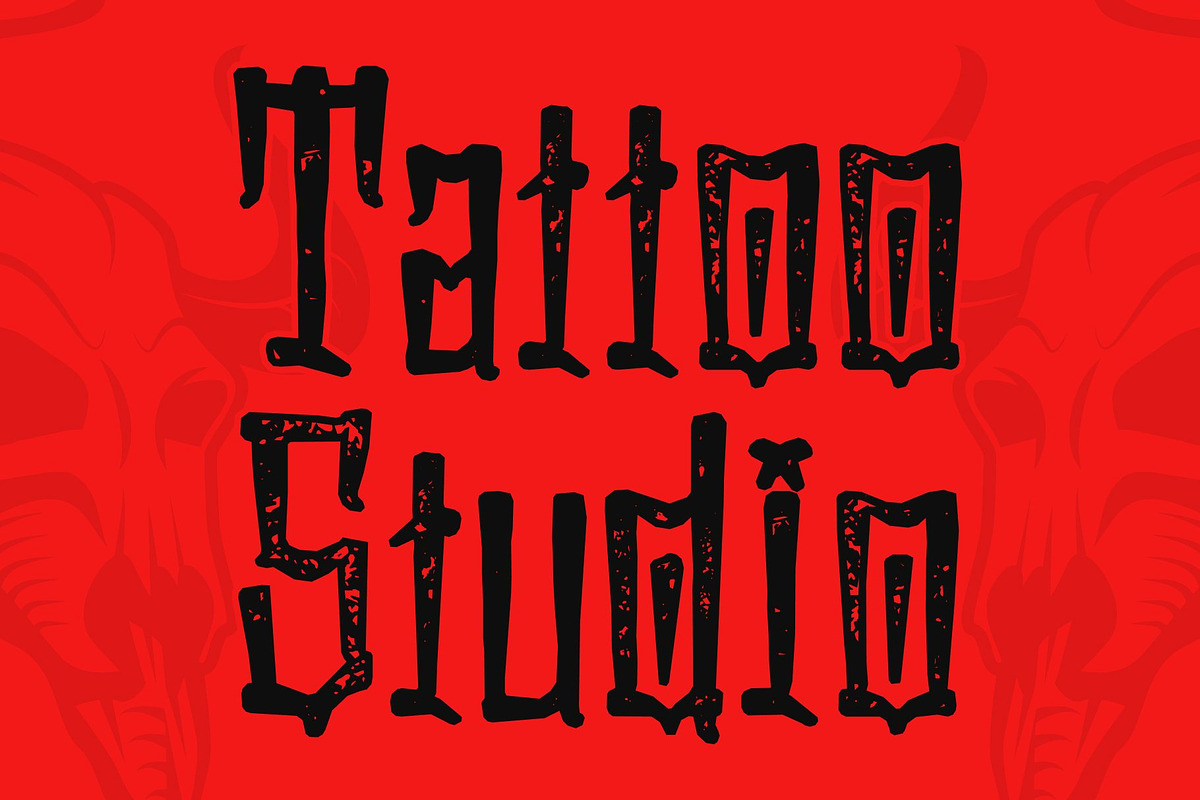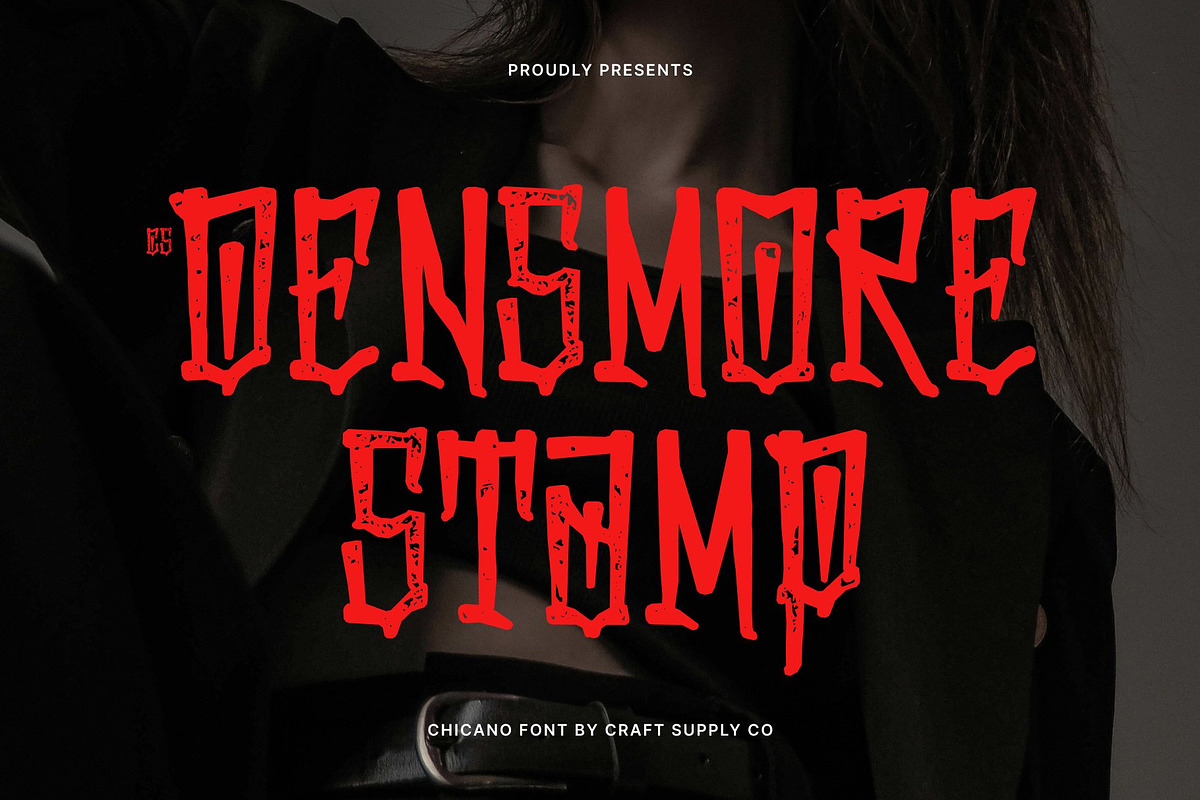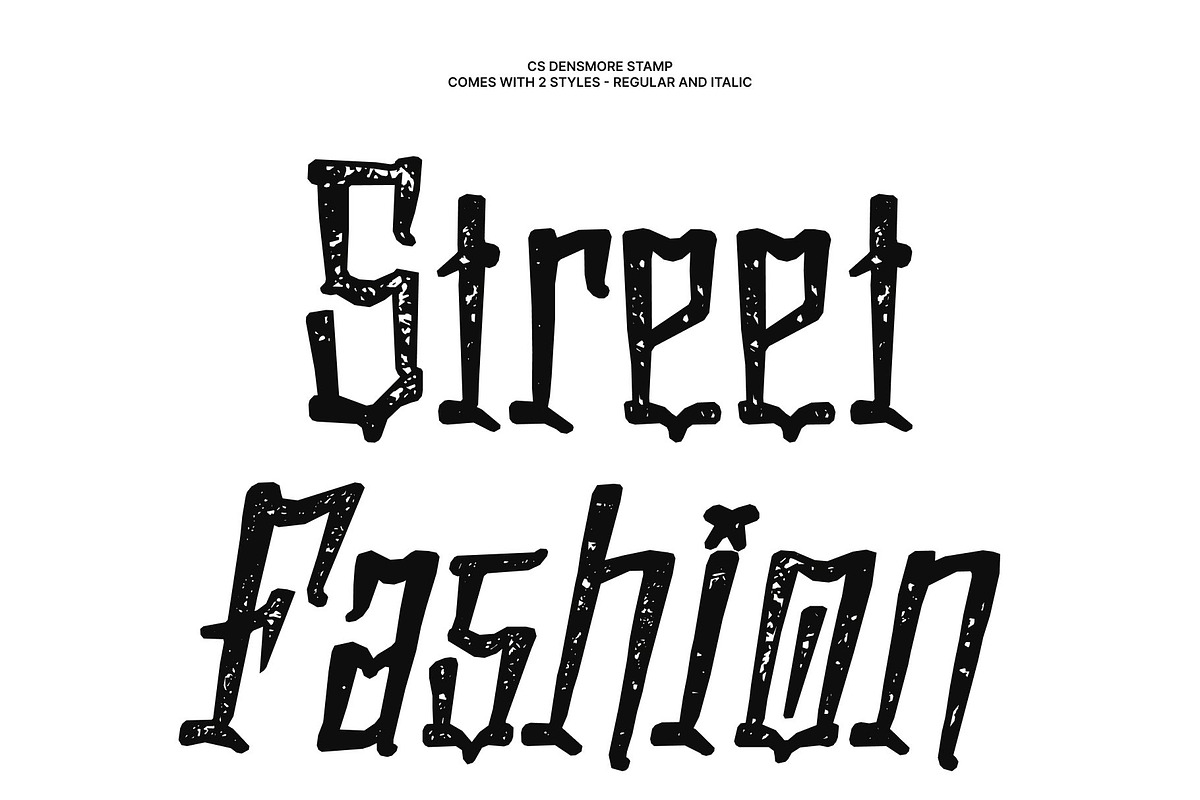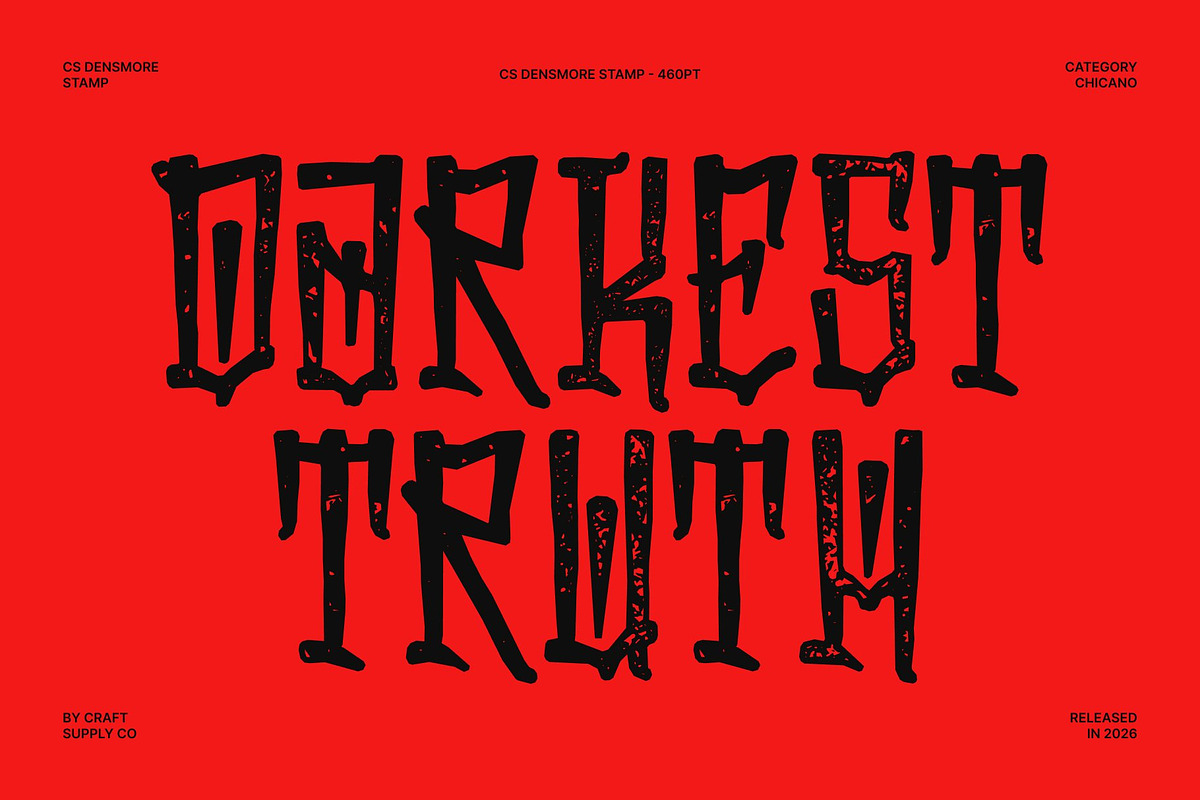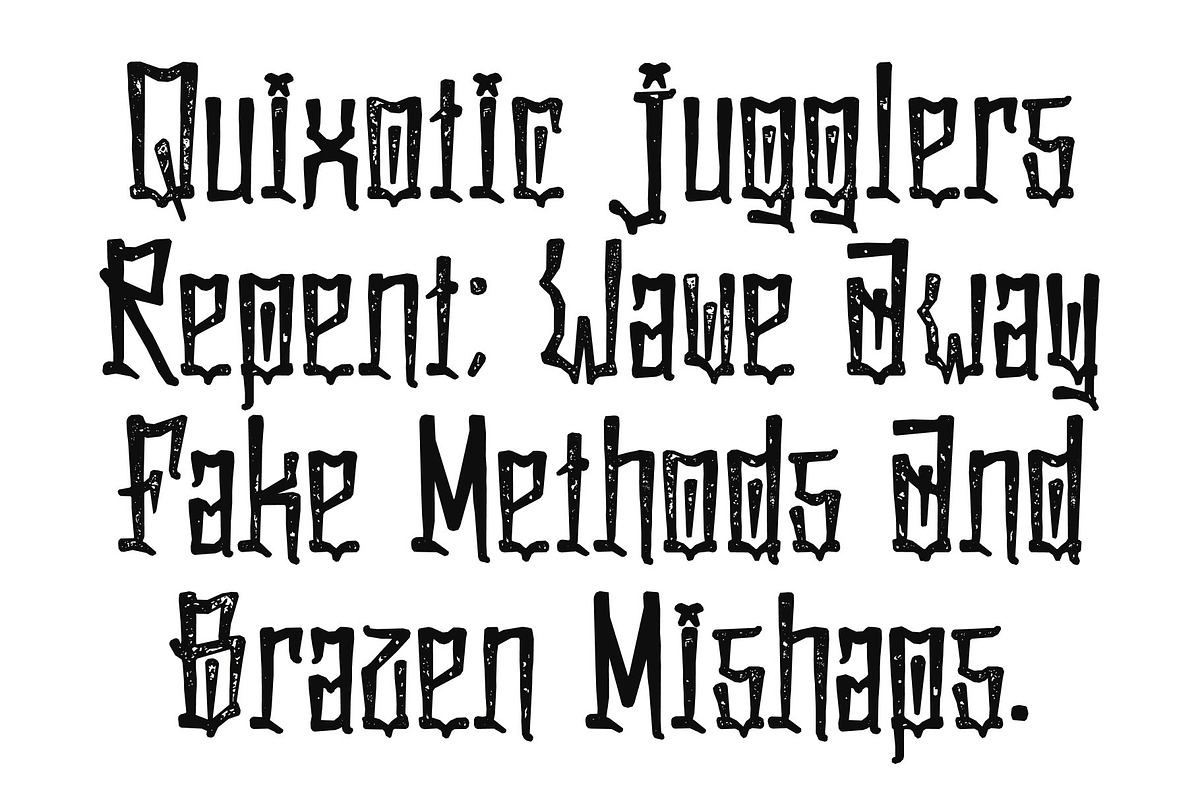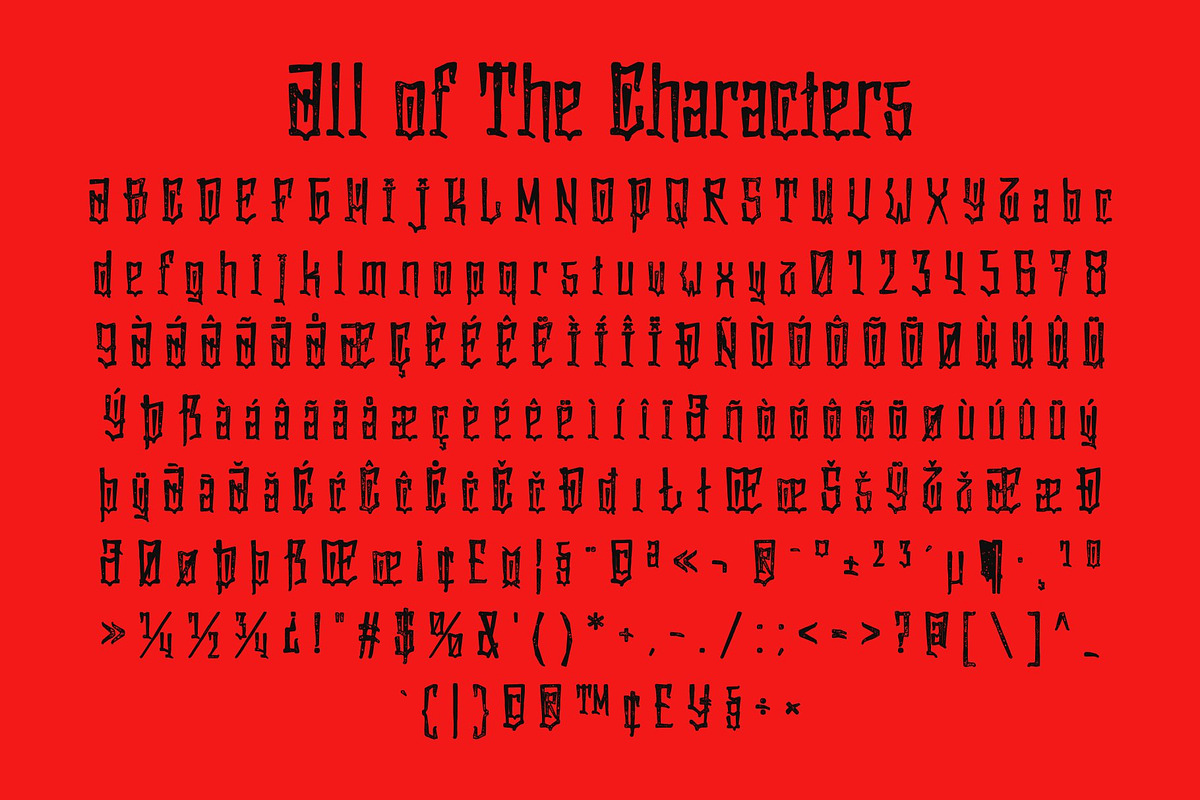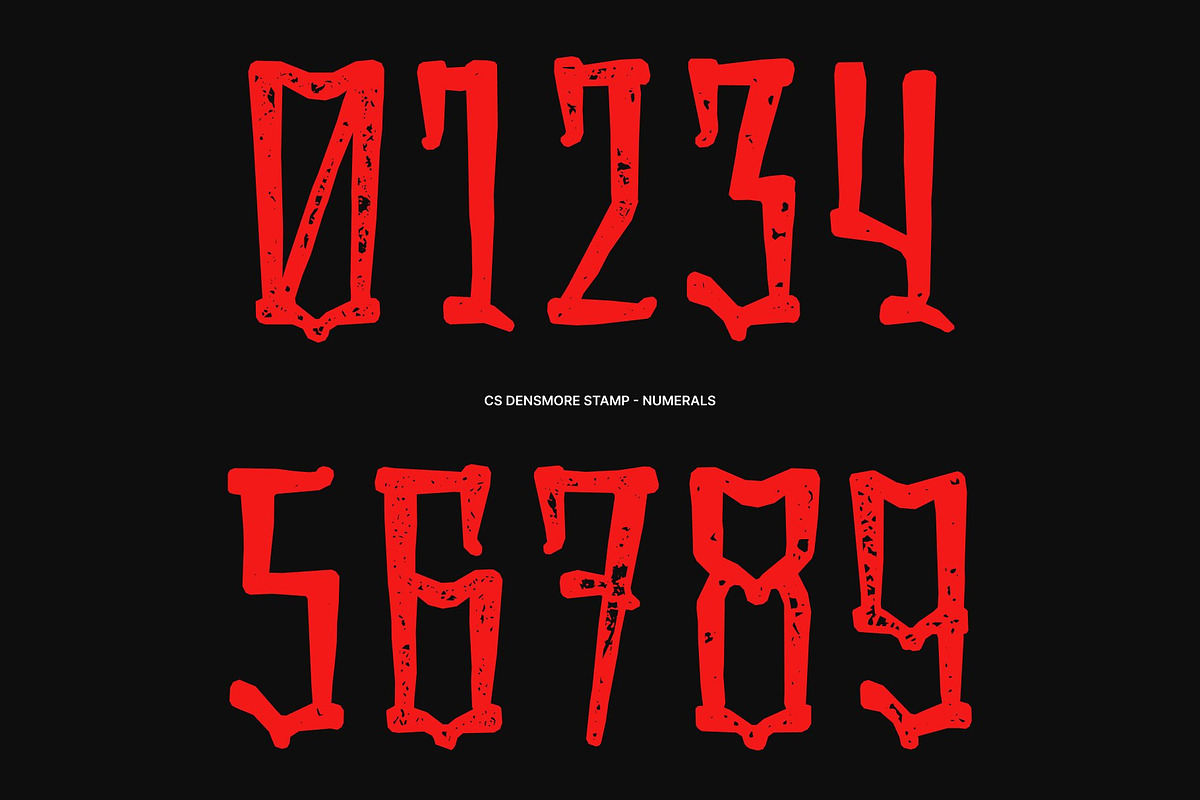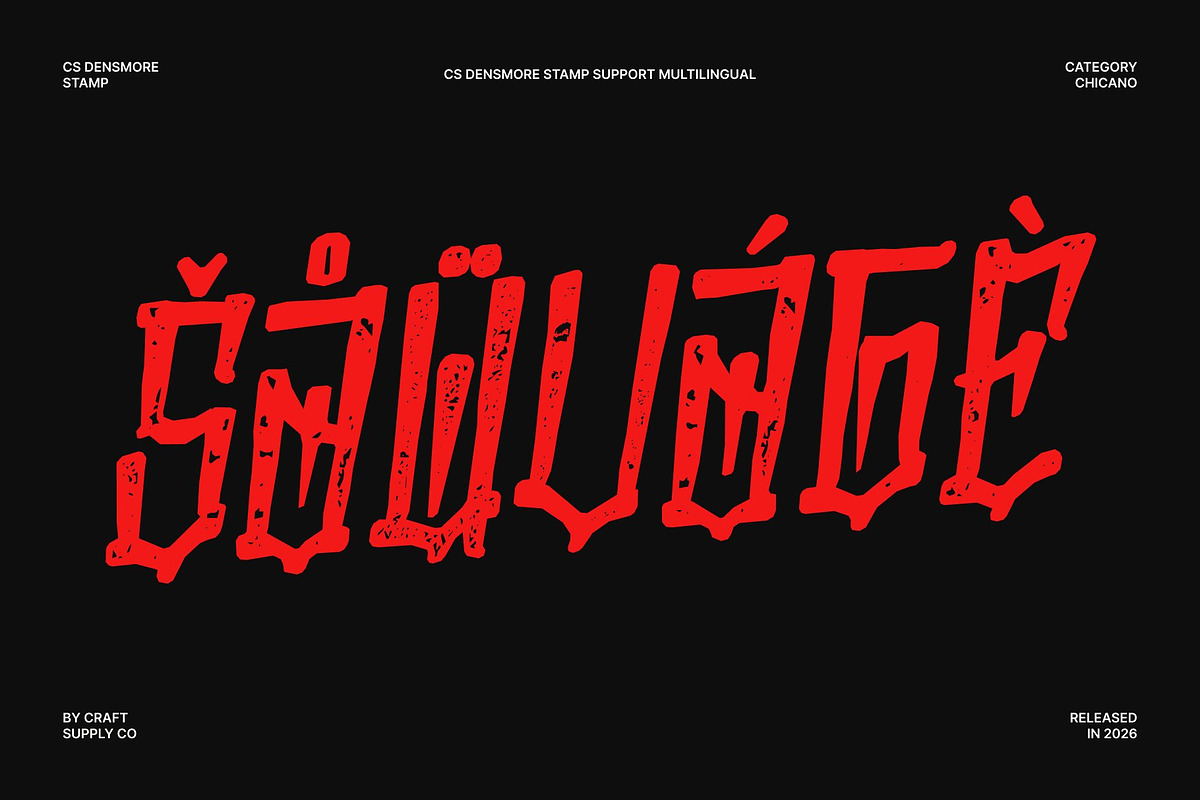
CS Densmore Stamp
CS Densmore Stamp – Chicano Graffiti Font: A Tribute to Cultural Expression
Bold Chicano Graffiti Display Style This is a bold and expressive display font inspired by the vibrant energy of Chicano street art and cultural identity. Its stamped texture enhances the handcrafted feel, while the dramatic letterforms convey pride, rebellion, and artistic heritage. The result is a typeface that feels authentic, powerful, and full of personality.
Intricate Letterforms with Fluid Curves The defining feature of this font lies in its detailed letterforms. Flowing curves and carefully crafted shapes create a dynamic rhythm that brings movement and life to every word. This expressive construction makes it ideal for projects that need a strong artistic voice and a distinctive visual presence.
Decorative Flourishes for Artistic Depth Elegant ornamental flourishes add richness and cultural depth to the font’s design. These details echo the artistry found in murals, tattoos, and street lettering, transforming each character into a decorative element that enhances the overall composition.
Perfect for Urban Branding and Creative Projects From tattoo artwork and posters to logos and urban-inspired branding, this font thrives in expressive, creative environments. Its bold graffiti influence and artistic flair make it an excellent choice for designs celebrating identity, culture, and individuality.
CS Densmore Stamp Regular
CS Densmore Stamp Italic